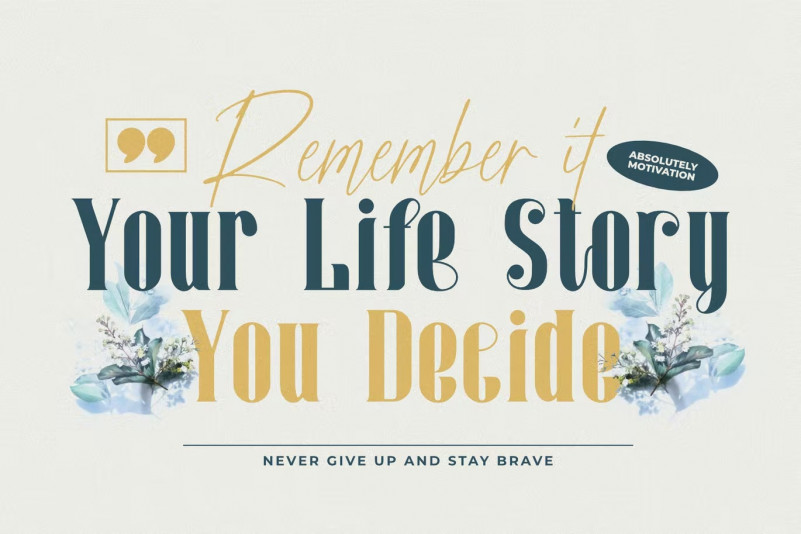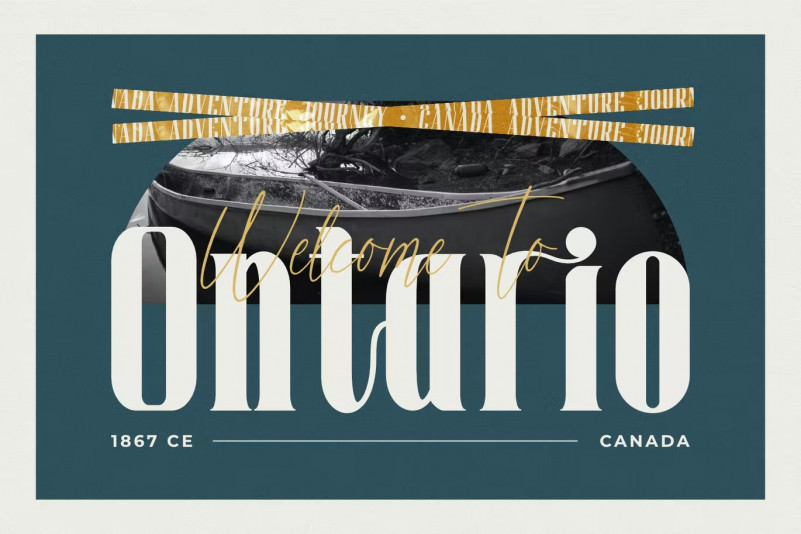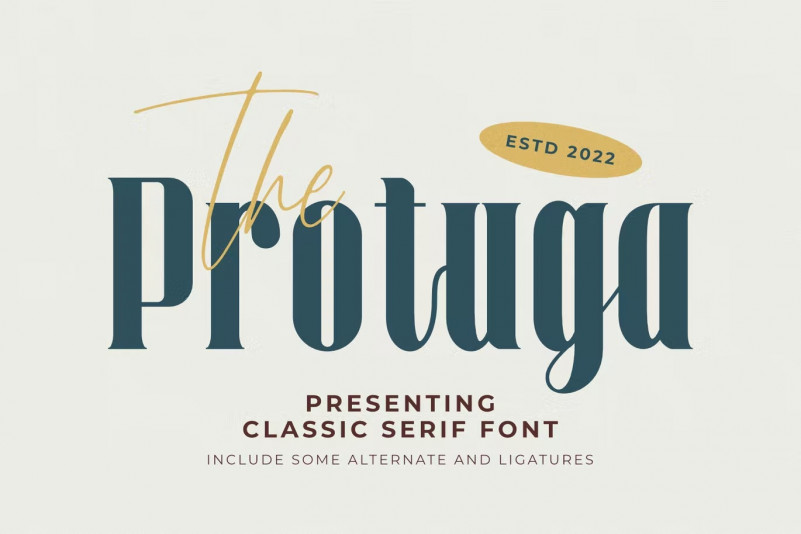
Protuga Font
Protuga Font Product is perfect for many of your projects such as logos and branding, photography, invitations, watermarks, advertisements, product designs, stationery, wedding designs, labels, product packaging , special events and more.